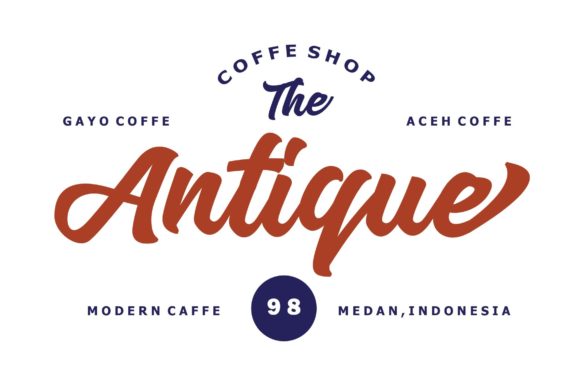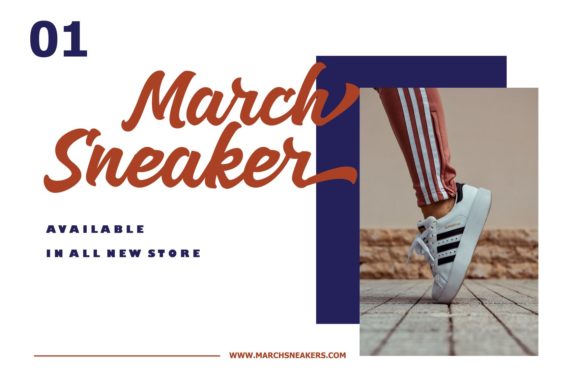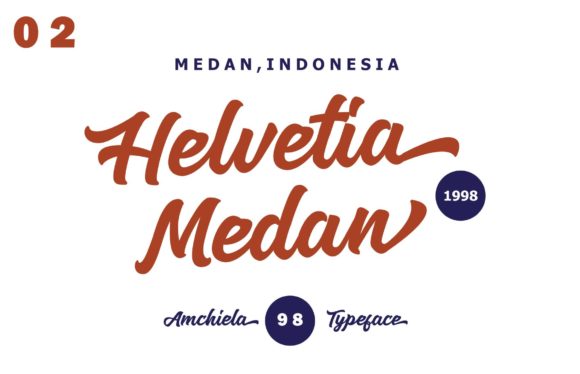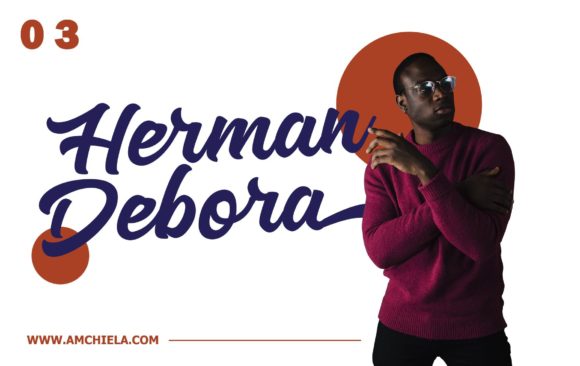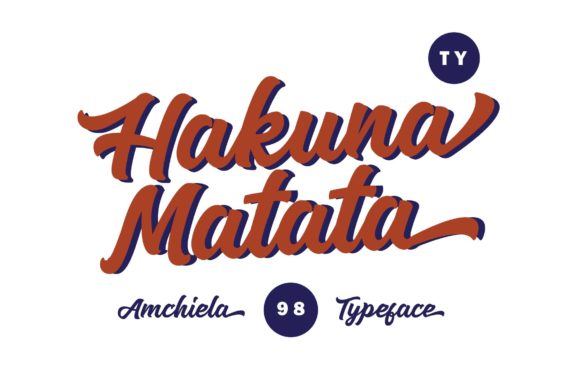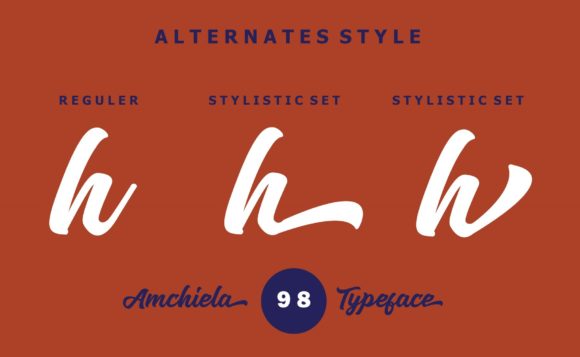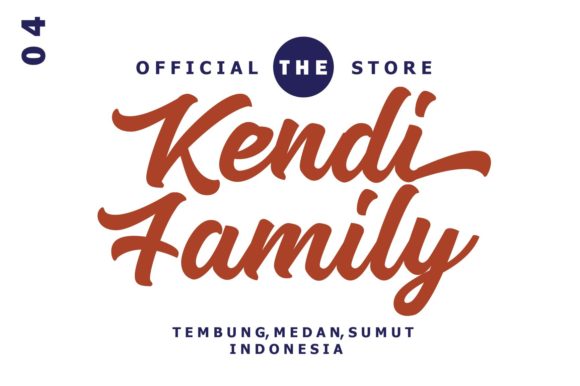
HomeScript FontsAmchiela Font Script Fonts Amchiela Font FacebookXPinterestWhatsApp Amchiela Font Poster 2 Amchiela Font Poster 3 Amchiela Font Poster 4 Amchiela Font Poster 5 Amchiela Font Poster 6 Amchiela Font Poster 7 Amchiela Font Poster 8 About Amchiela Font Amchiela is a unique and beautiful handwritten font with a bold and authentic charm. DOWNLOAD ON CREATIVE FABRICAThis font is sold and delivered by Creative Fabrica. Font Canyon may earn a commission if you buy through this link. People also explored Maulydiya Font Dez Boulder Marilena Font Pulse Font Bellasic Font Alansky Font Akkardion Font Gorizon Font Almeida Font 284 0 TagsAmchiela Font Previous articleMirinia FontNext articleAngellife Font LEAVE A REPLY Cancel reply Comment: Please enter your comment! Name:* Please enter your name here Email:* You have entered an incorrect email address! Please enter your email address here Website: Save my name, email, and website in this browser for the next time I comment. Personal Use Free Cheese Matcha Font Personal Use Free Read more about this font Stone Cold Personal Use Free Read more about this font Messages Personal Use Free Read more about this font Hommy You Personal Use Free Read more about this font BLOG Fonts That Capture the Spirit of New York City New York City is more than just a place—it’s an experience, a rhythm, a visual language... Free Fonts Risk: Why Free Fonts Can Be Dangerous for Designers Where to Buy American Fonts Online in 2024 Best Fonts for T-Shirt Design – Top 2025 Picks